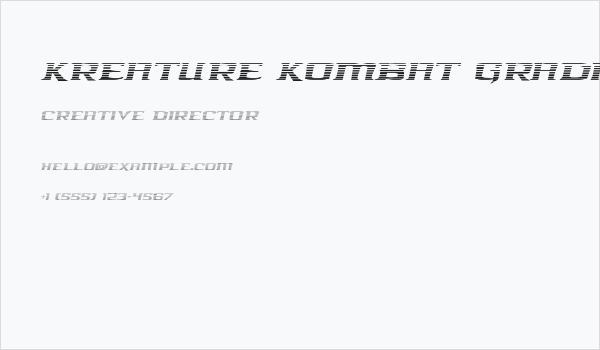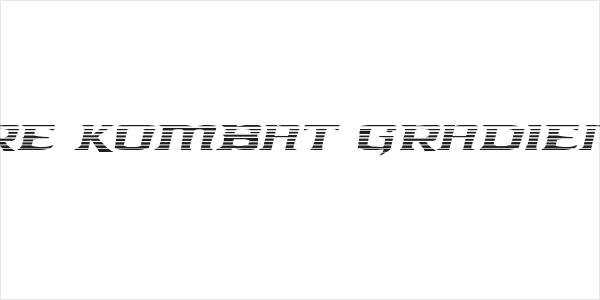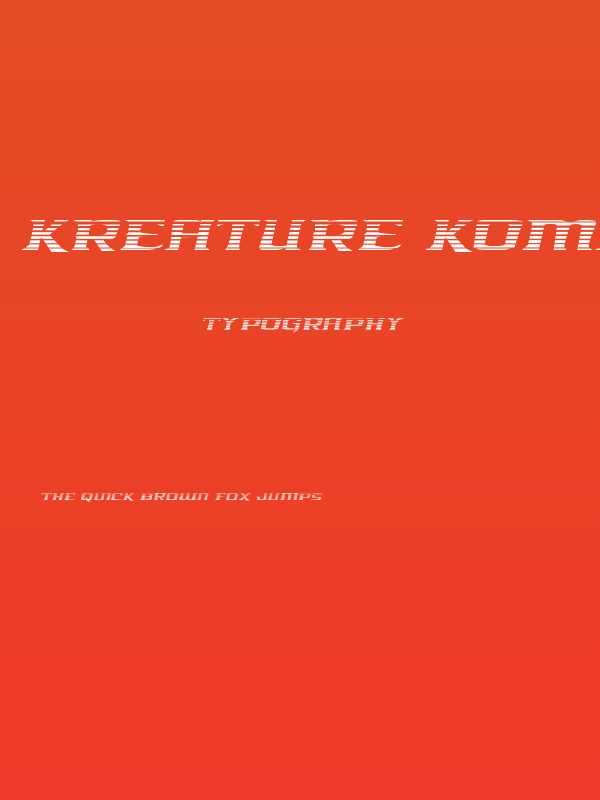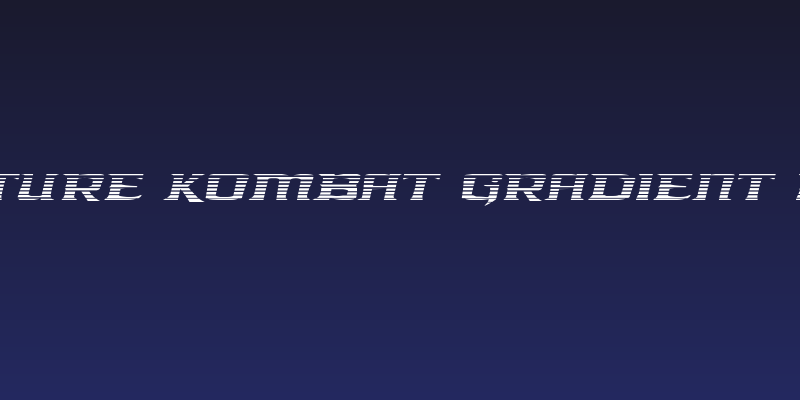
Kreature Kombat Gradient Italic Font
Kreature Kombat Gradient Italic Description
This font features a dynamic and futuristic design with a distinct gradient effect that gives each character a sense of movement and energy. The italicized style adds a forward-leaning, aggressive stance, enhancing its modern appeal. Each letter is composed of horizontal lines that create a striped pattern, contributing to its unique visual texture. The font maintains a consistent slant across all characters, providing a cohesive look. Its bold appearance makes it suitable for attention-grabbing headlines or titles. The numbers and special characters follow the same stylistic approach, ensuring uniformity throughout.
| Proposed Projects | Ideal for video game titles, sci-fi movie posters, tech branding, and sports team logos. |